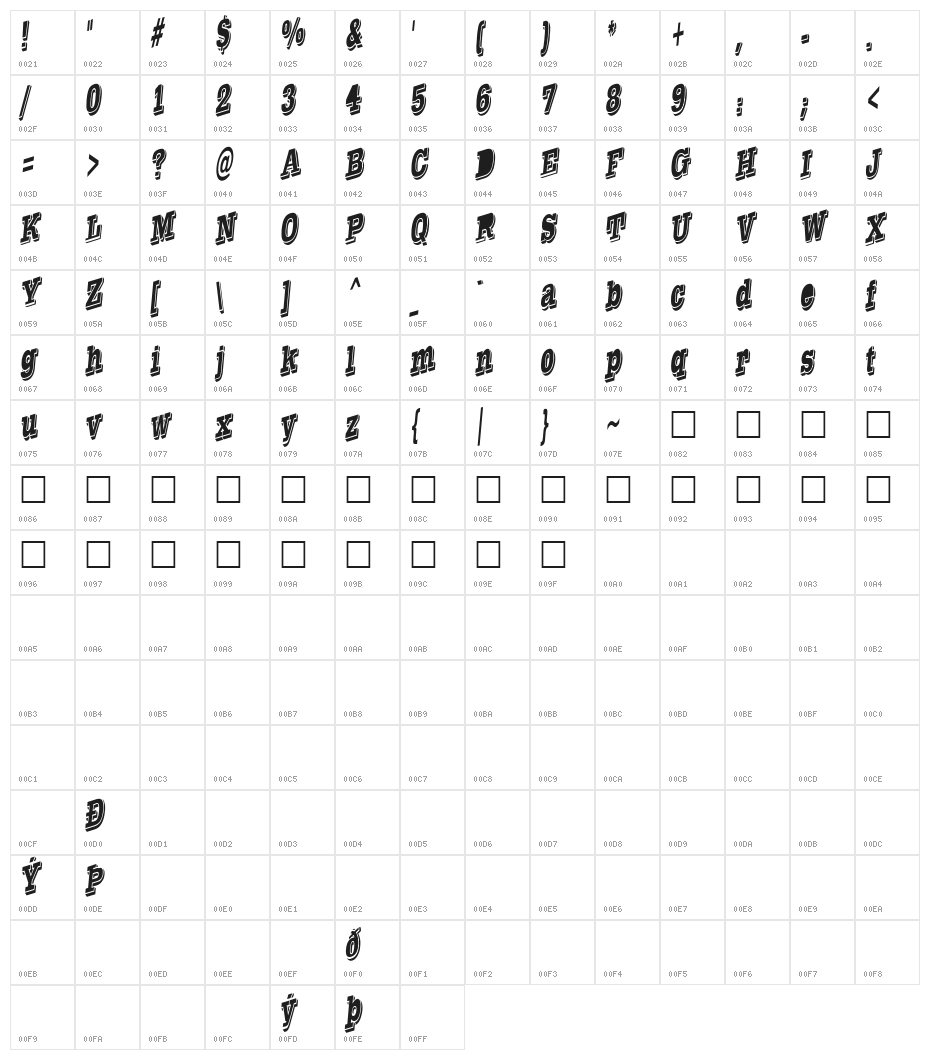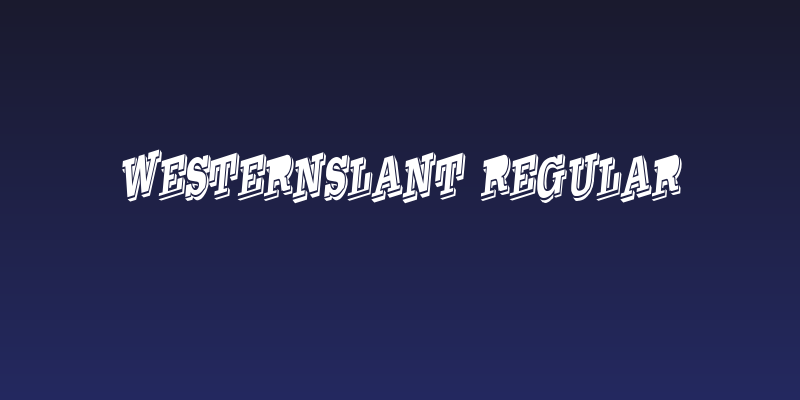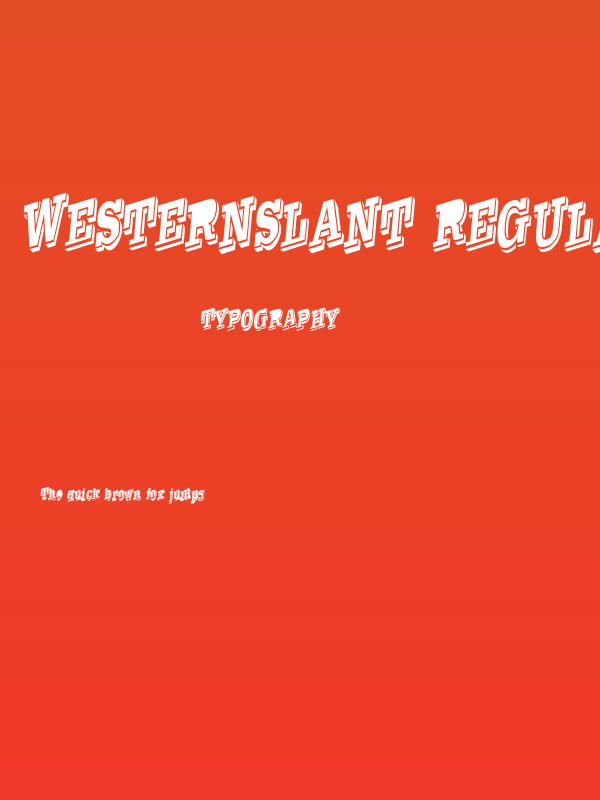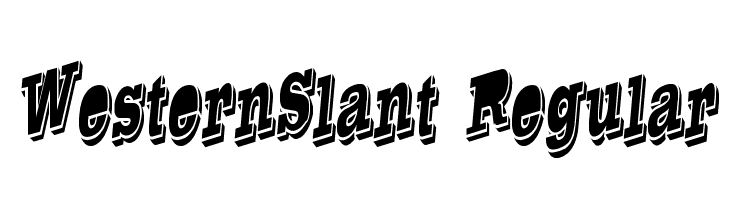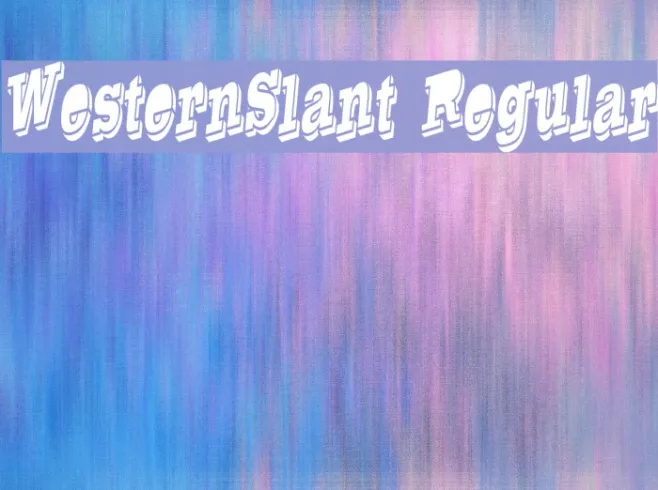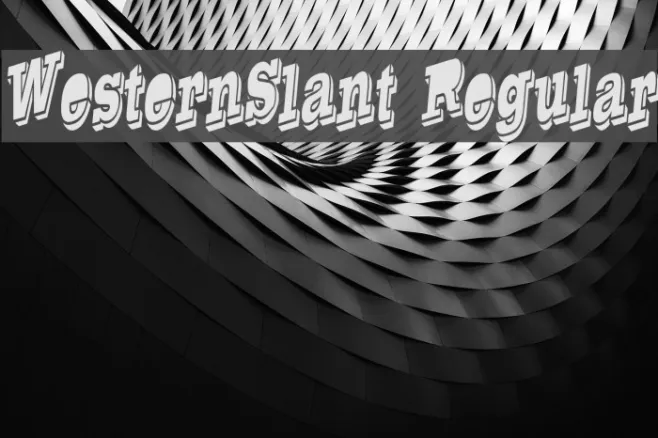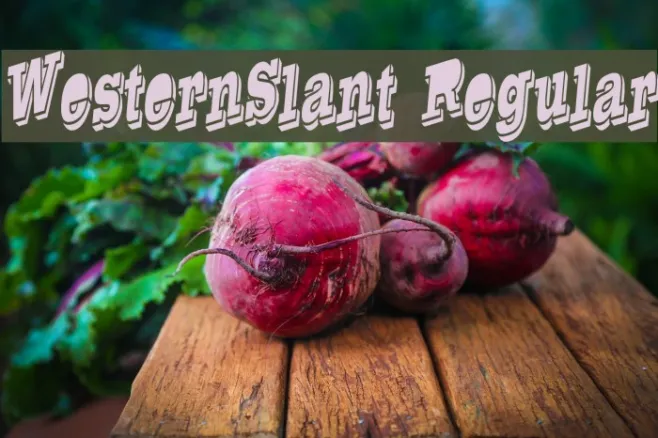
WesternSlant Regular Font
WesternSlant Regular Description
This font features a bold, slanted design with a distinct Western flair. The characters are heavily stylized with a three-dimensional shadow effect, giving them a dynamic and eye-catching appearance. The uppercase and lowercase letters maintain a consistent slant, enhancing the font's cohesive look. The numerals and special characters follow the same design principles, ensuring uniformity across all glyphs. The font's boldness and unique style make it ideal for projects requiring a strong visual impact.
| Overall Style | Vintage |
| Proposed Projects | Ideal for posters, signage, branding, and any project needing a Western or vintage theme. |